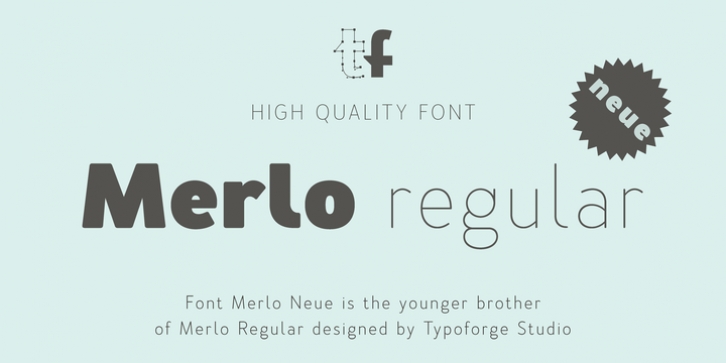
Merlo Neue is the younger brother of Merlo. New family received refreshed, more square proportions and a new shape of many glyphs. However, what is the most important in new Merlo, is the wide range of instances – nine new weights, from Hairline to super dark Black – which allows to use the family in a complex way, depending on the user’s needs. Italic version has narrower and lighter proportions. Font has a glyph set for latin script and old-style figures. Merlo Neue would be a great choice for display use as well as for the longer texts. Font Merlo Neue is inspired by a “You And Me Monthly” published by National Magazines Publisher RSW "Prasa” that appeared from Mai 1960 till December 1973 in Poland.